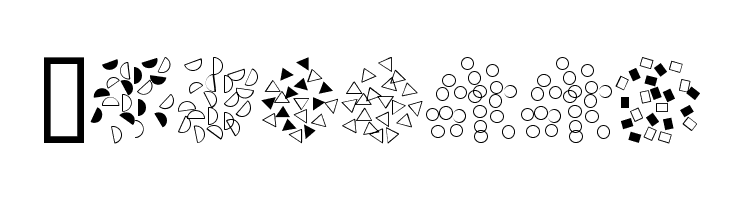
A bold, futuristic font with geometric shapes and unique cutouts.
( Paul Lloyd Fonts )
A wide, bold font with uniform strokes and modern appeal.
( Fonts by www.creatingkeepsakes.com )
A playful, handwritten font with a casual and friendly vibe.
A fluid and elegant script font with interconnected uppercase and smooth lowercase letters.
A bold, modern font with strong geometric shapes and thick strokes.
( Fonts by Gunawan )
A playful, bold font with thick strokes and rounded edges, perfect for creative designs.
A bold, textured font with a vintage, handcrafted feel.
( Fonts by Tokopress )
A playful, bold, and cartoonish font with thick, uneven strokes and a hand-drawn feel.
( Fonts by Qwerks )
A bold slab serif font with strong, block-like serifs and a commanding presence.
A cursive, handwritten font with elegant, flowing curves and a bold presence.
( Fonts by Omnibus Type )
A bold, geometric font with high contrast and a modern style.
( www.jacktherabbit.info )
A bold, angular font with a dynamic, graffiti-inspired style.
A bold, modern serif font with strong strokes and a classic touch.
( Vladimir Nikolic - www.coroflot.com/vladimirnikolic )
A bold, geometric font with an industrial and futuristic style.
( Fonts by Steve Cloutier - www.cloutierfontes.ca )
A decorative and intricate font with characters formed by intertwining shapes.
( Fonts by GUD )
An elegant script font with flowing, interconnected letters and ornate flourishes.
A geometric, angular font with intersecting lines and a bold, modern style.
( Fonts by www.smeltery.net )
A playful, handwritten font with irregular strokes and a casual style.
A dynamic and elegant script font with flowing, cursive letterforms.
A bold, brush-style font with dynamic and expressive characters.
A classic serif font with elegant strokes and balanced proportions.
( Fonts by Vunira Design )
A playful, hand-drawn font with tall, narrow characters and a whimsical style.
A playful, modern font with continuous, flowing lines and a whimsical touch.
A bold, expressive script font with a hand-drawn, rustic appearance.
( Fonts by Alit Suarnegara )